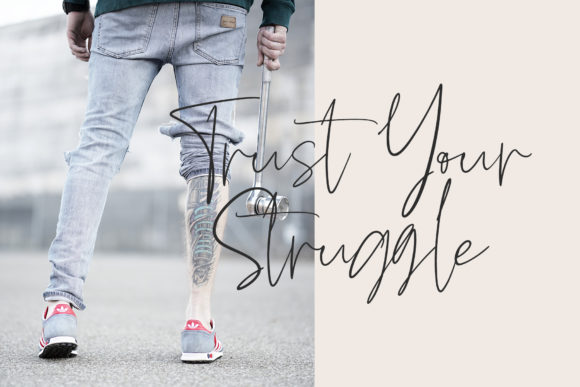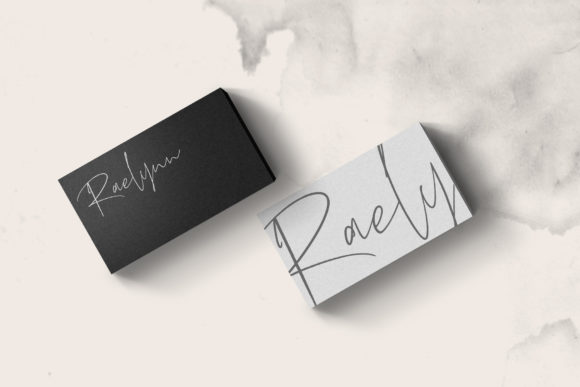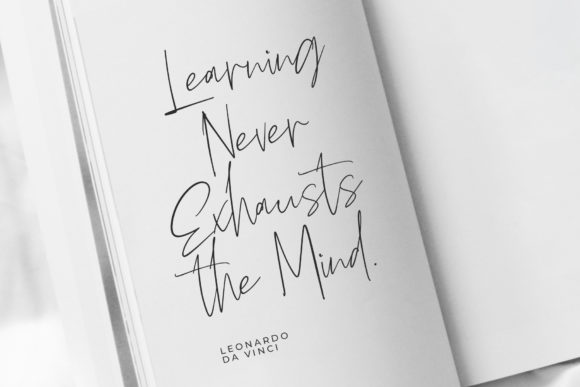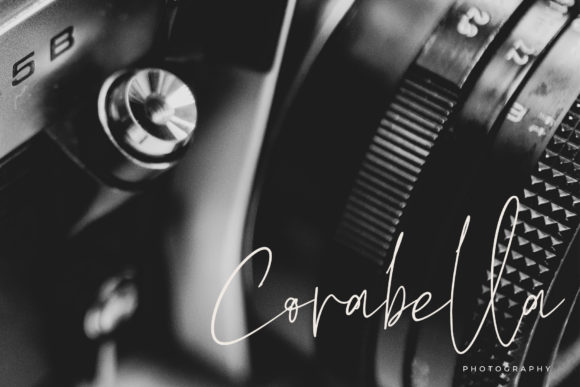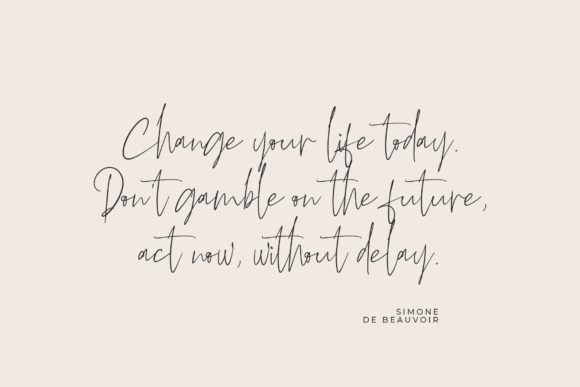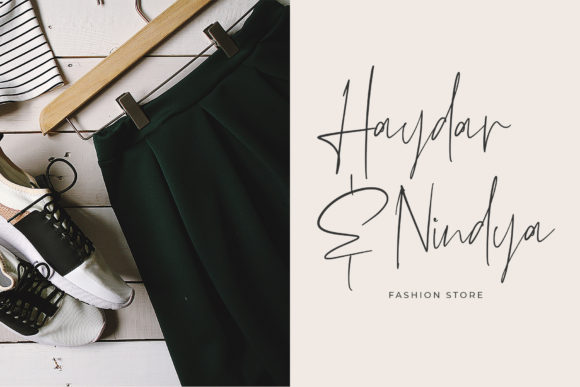
Introduction to Oaklinn Script Font
Oaklinn is a stunning and elegant script with an organic charm.
Get inspired by this unique typeface, and turn any crafts project into a stand out .
Key Features of Oaklinn Script Font
Why Choose Oaklinn Script Font?
Oaklinn Script Font offers exceptional quality and versatility, making it a valuable addition to your design toolkit. Whether you’re creating for personal projects or commercial use, Oaklinn Script Font delivers professional results.